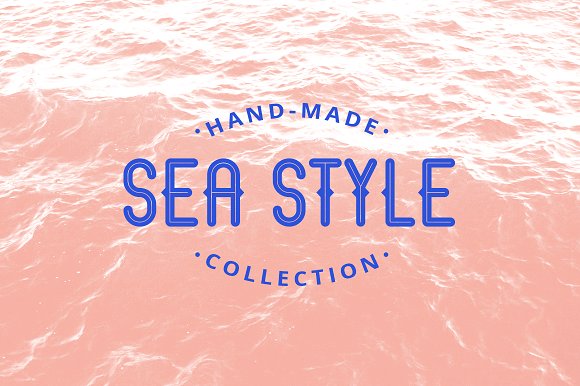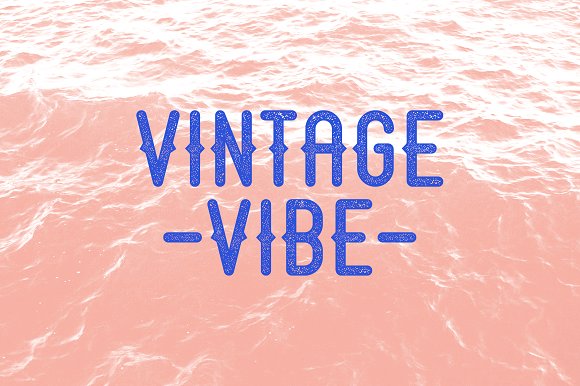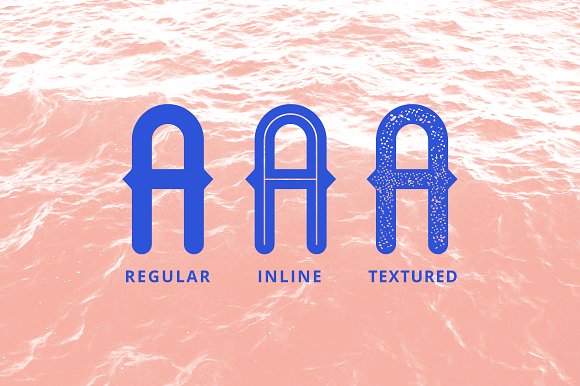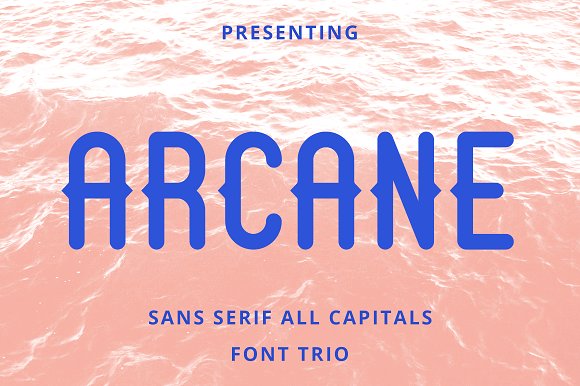
Arcane Sans Font Trio
Introducing Arcane Font. It is designed by Seceme Shop, this is a premium font, are sold on creativemarket, but it was great, it is free today for download. Arcane is a vintage-inspired sans serif font with a modern touch. It is perfect for headings, retro design, vintage logos, packaging design, prints and more! For the best results you can pair Arcane with an all-caps sans serif font.